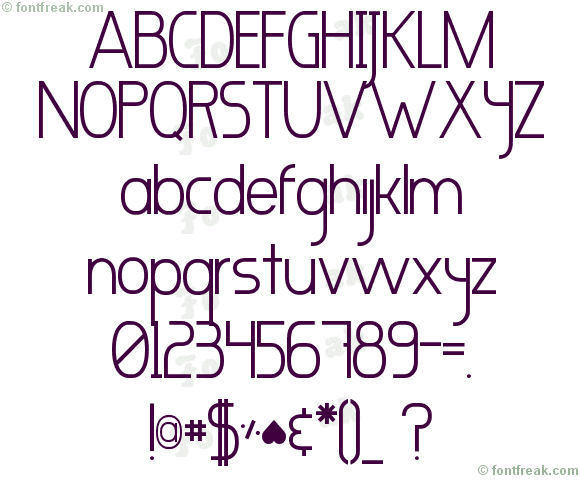
Marcelita Sans
About Marcelita Sans
Marcelita Sans, designed by Michael Muranaka in 2011, is a contemporary sans-serif typeface that beautifully balances modern aesthetics with versatility. This font features a clean and minimalistic design, characterized by its uniform stroke weight and moderate contrast. The letterforms are spaciously arranged, providing excellent readability while maintaining a sleek appearance. The absence of decorative elements keeps the focus on its straightforward, professional look, making it suitable for various applications.
Due to its versatile nature, Marcelita Sans is an excellent choice for a range of use cases. It works particularly well for branding projects, such as logos and business cards, where clarity and modernity are essential. Additionally, the font is ideal for website design, where legibility and a contemporary feel can enhance user experience. It also shines in print materials like brochures and flyers, as well as in presentations where a clean and polished look is desired. Content creators and graphic designers will find Marcelita Sans highly adaptable for social media graphics, ensuring that their messages are communicated effectively.
The target audience for Marcelita Sans includes graphic designers, small business owners, and content creators looking for a typeface that embodies professionalism and modernity. This font is perfect for those who want to make a statement without overwhelming their audience.
What sets Marcelita Sans apart is its unique ability to blend simplicity with sophistication. It offers a refreshing alternative to more traditional typefaces, providing a contemporary look that can elevate any design project. For those seeking a stylish yet functional typeface, Marcelita Sans font free download is an opportunity not to be missed. Embrace this font to enhance your creative endeavors and make a lasting impression.